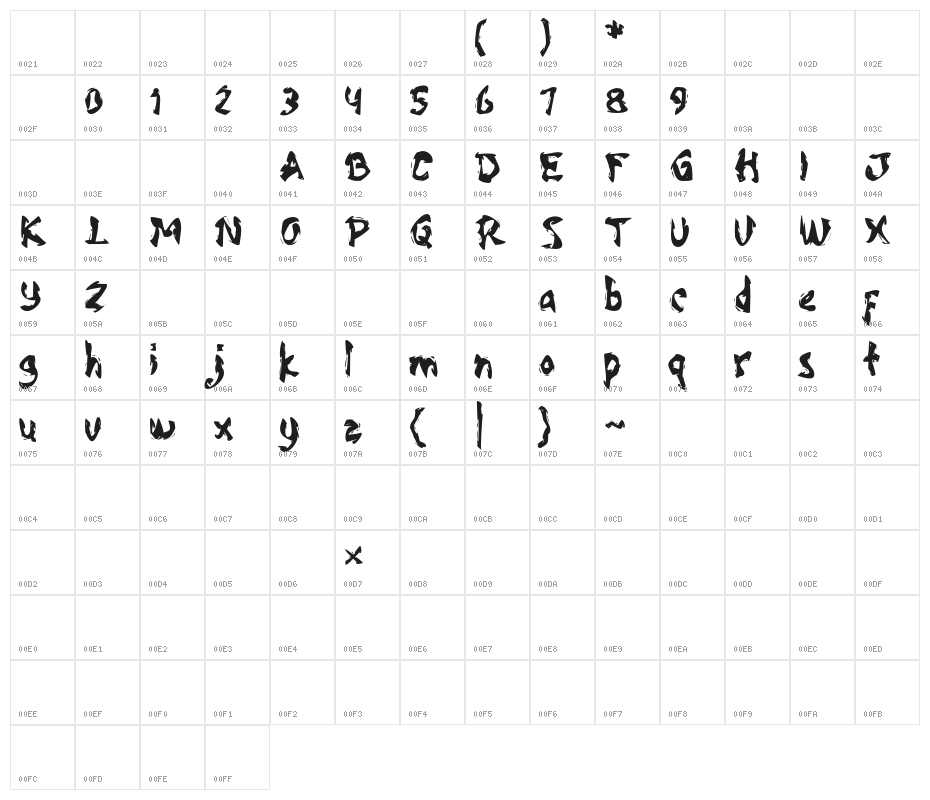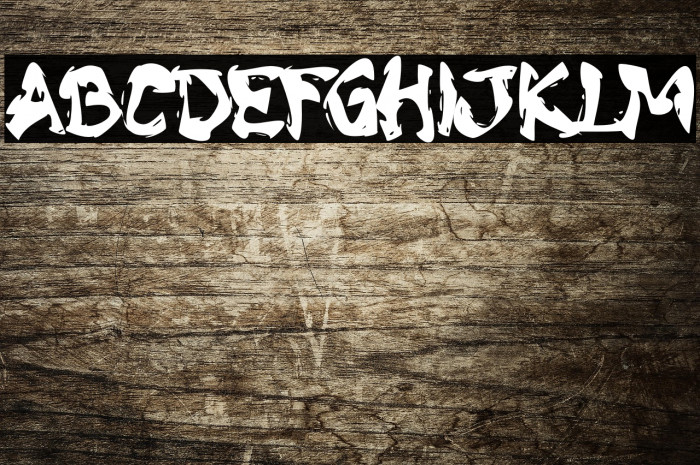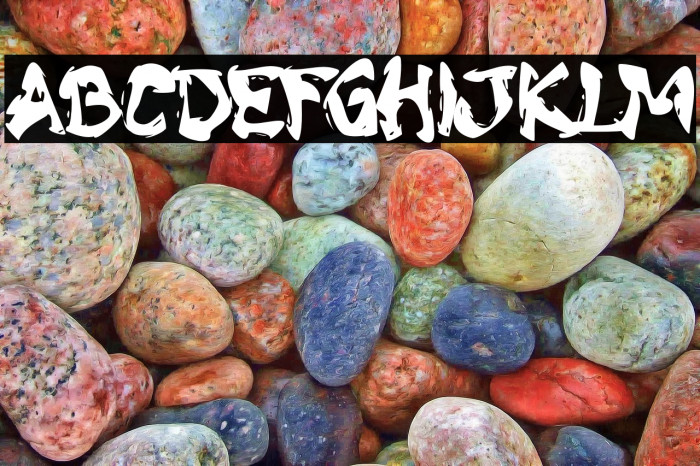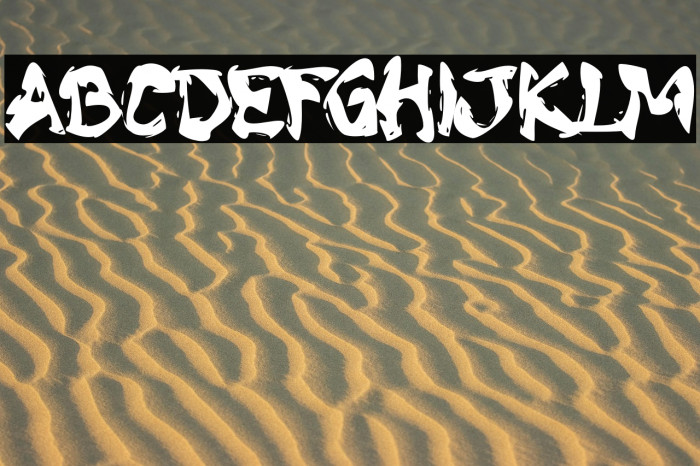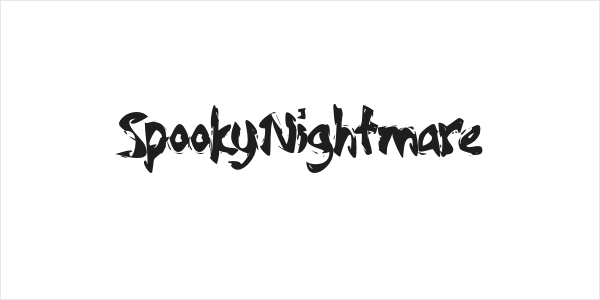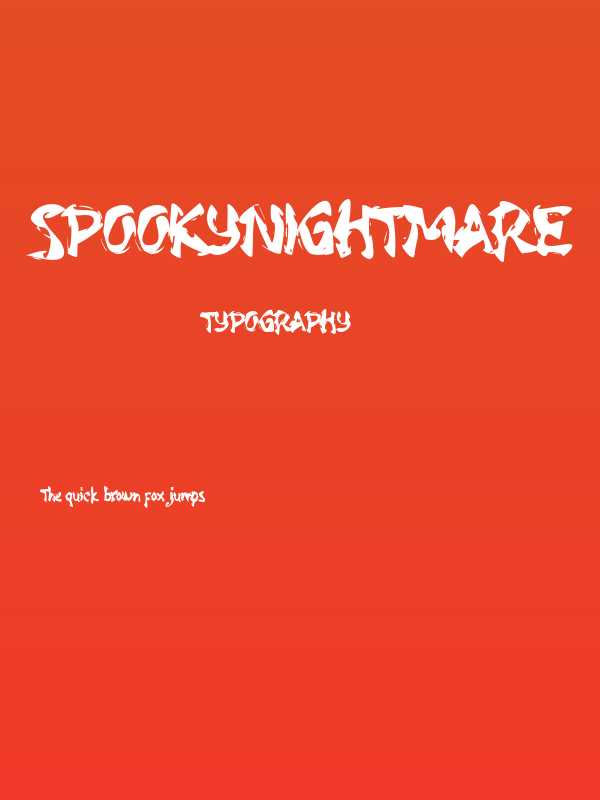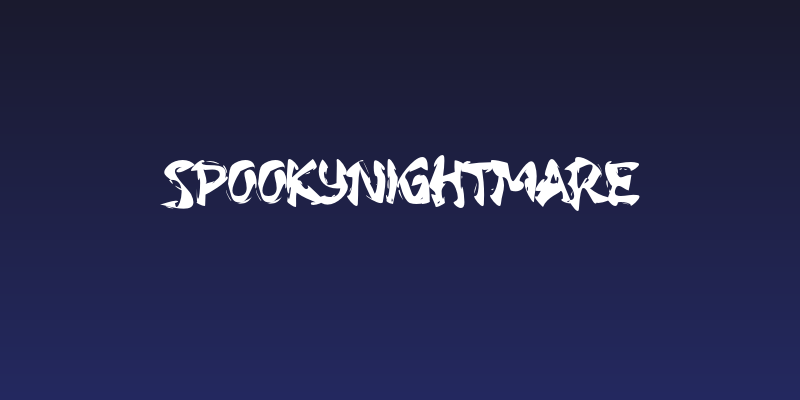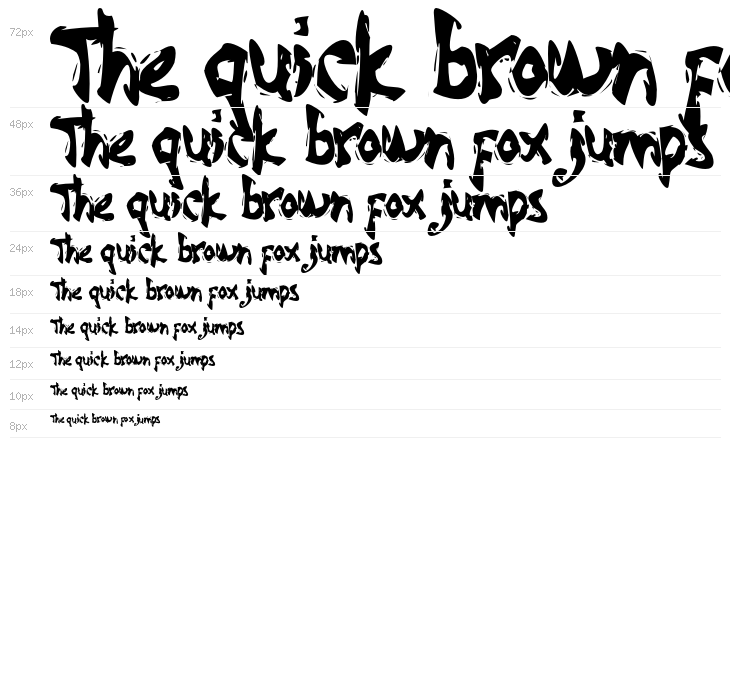
SpookyNightmare Font
SpookyNightmare Description
This font exudes a haunting and eerie vibe, perfect for creating a spooky atmosphere. The letters are jagged and irregular, resembling torn paper or claw marks, which adds to its unsettling appearance. The strokes are bold and uneven, giving a sense of chaos and unpredictability. The font maintains a consistent level of distortion across both uppercase and lowercase letters, as well as numbers and special characters. Its unique style makes it ideal for Halloween-themed projects or any design that requires a touch of horror or mystery.
| Proposed Projects | Ideal for Halloween invitations, horror movie posters, haunted house flyers, and spooky-themed merchandise. |